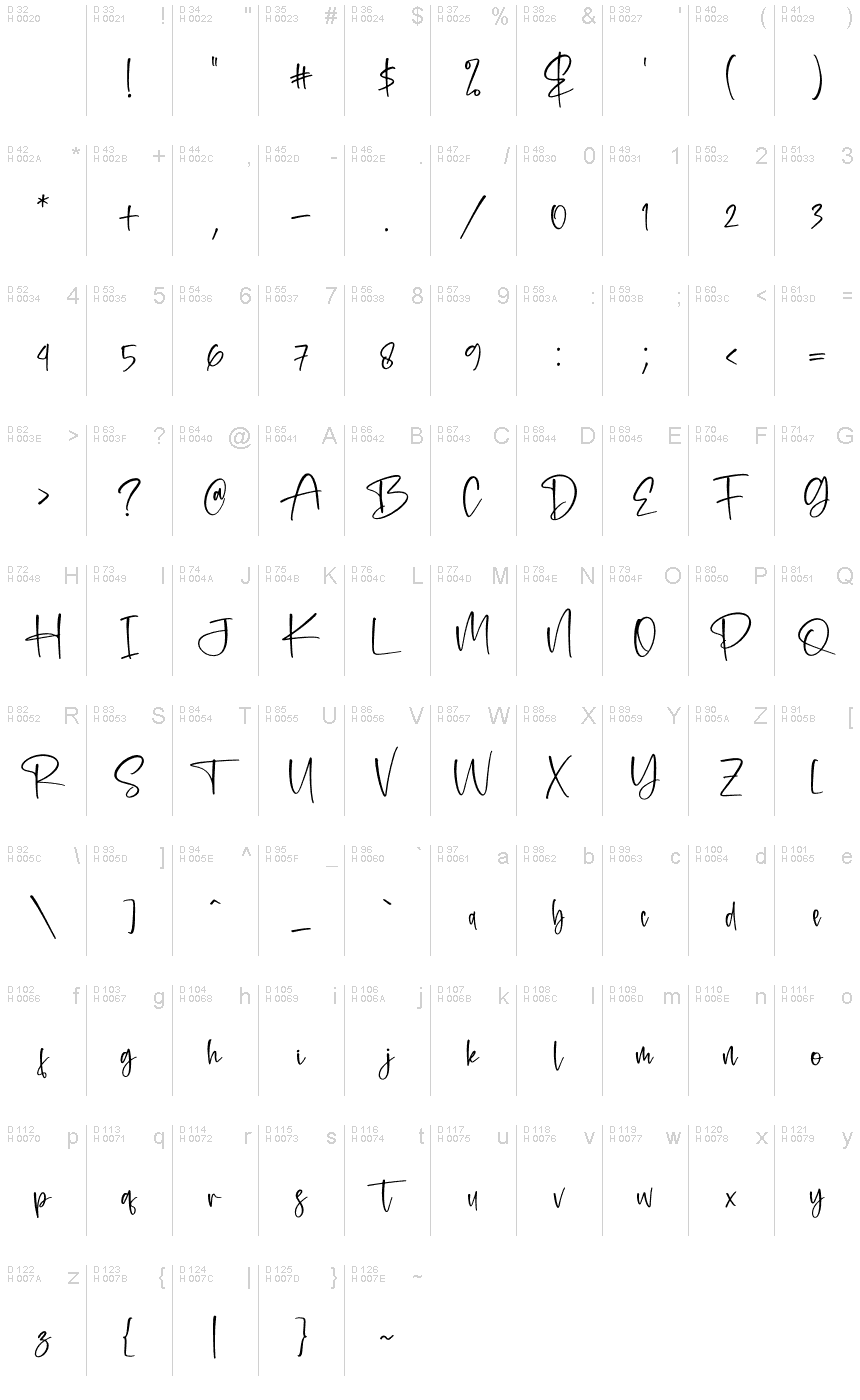
Fitriany, a modern handwritten font from Letterena Studios, adds a touch of elegance to your designs. Its beautiful script style makes it perfect for a wide range of projects. Use it to create stunning logos and branding materials that will leave a lasting impression.
Enhance your homeware designs and product packaging with this exquisite font. It's also great for adding quotes, posters, and shopping bags that exude sophistication. Create eye-catching t-shirts and book covers that stand out from the crowd. Whether you need name cards, invitation cards, or greeting cards, Fitriany is the perfect choice. It also works well for labels, photography watermarks, and special events where you want to add a touch of charm.
Let Fitriany elevate all your lovely projects with its beautiful script taste.